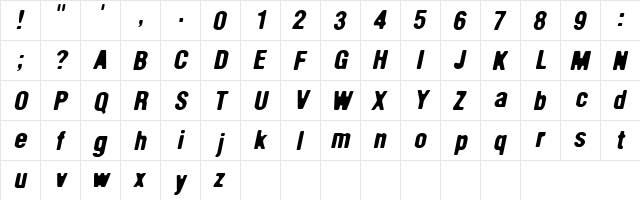
Helvetica Condensed Destressed
Design Context for Helvetica Condensed Typeface
Helvetica Condensed offers clean, dependable letterforms without strong stylistic allegiance, making it a practical choice for designers who need flexibility. The condensed width makes it efficient for tight spaces without sacrificing legibility.
Pro Tip: Use Helvetica Condensed in both headline and body roles to test its range before committing to a single application.